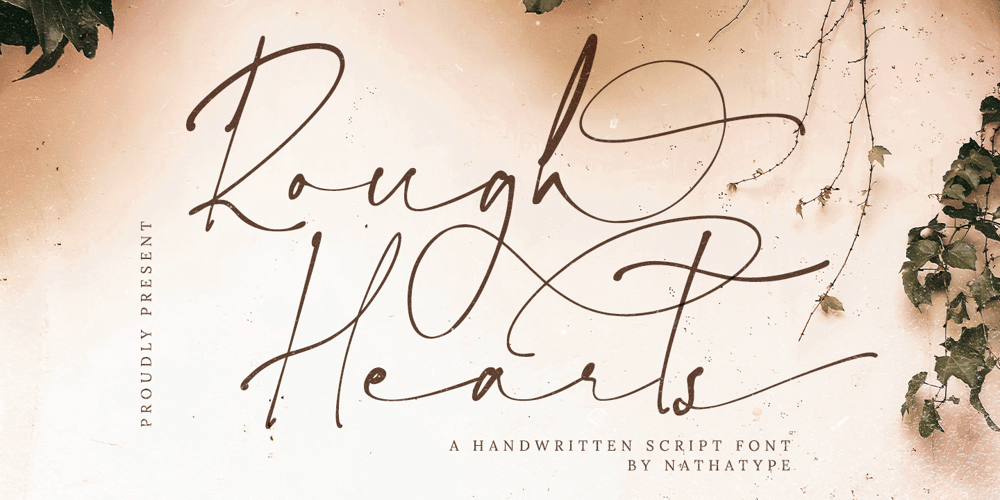
Rough Hearts Font Family was designed by Donis Miftahudin and published by Nathatype. Rough Hearts contains 1 styles and family package options. Do you want a handwriting style font in consistent, professional displays? Well, finding such fonts can be tough and time-consuming work. Therefore, Rough Hearts is here for your perfect choice.Rough Hearts is a font in a handwriting style with different, more natural shapes looking like spontaneously written letters. Each letter detail is made in swinging styles and this font also has high letter contrast, which means the thickness and thinness differences of the lines on each letter can be clearly seen.This font produces personal and creative impressions resulting in its legibility and attractiveness to apply for simply interesting design projects. You can use this font for big text sizes to be greatly legible and also enjoy the available features here.Features: Alternates Ligatures Stylistic Sets Multilingual Supports PUA Encoded Numerals and Punctuations Rough Hearts fits best for various design projects, such as brandings, headings, magazine covers, quotes, printed products, invitations, greeting cards, name cards, merchandise, social media, etc. Find out more ways to use this font by taking a look at the font preview.Thanks for purchasing our fonts. Hopefully, you have a great time using our font. Feel free to contact us anytime for further information or when you have trouble with the font. Thanks a lot and happy designing.